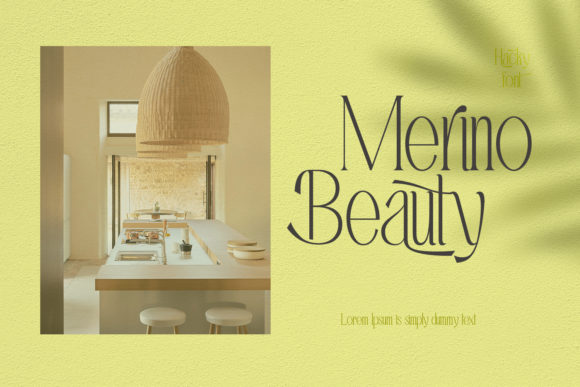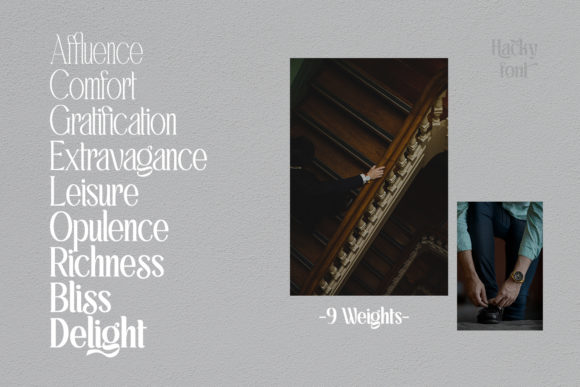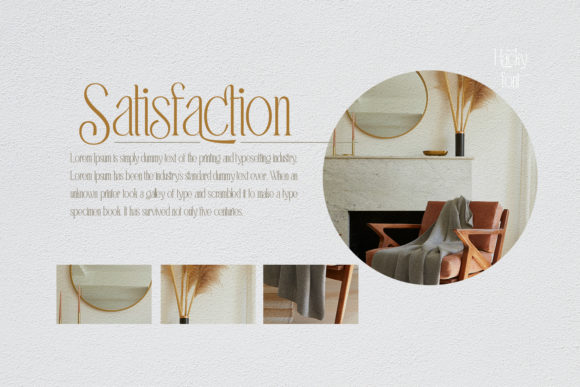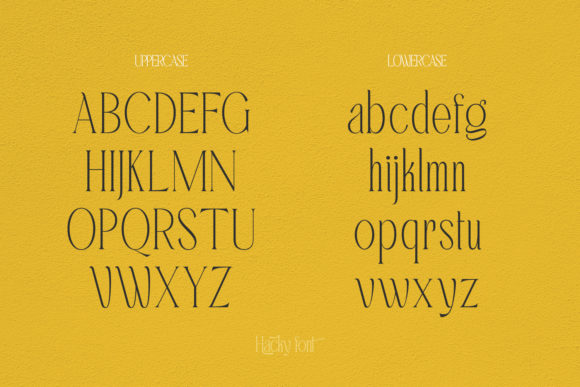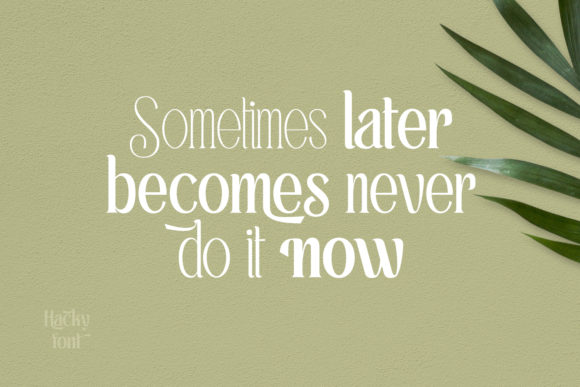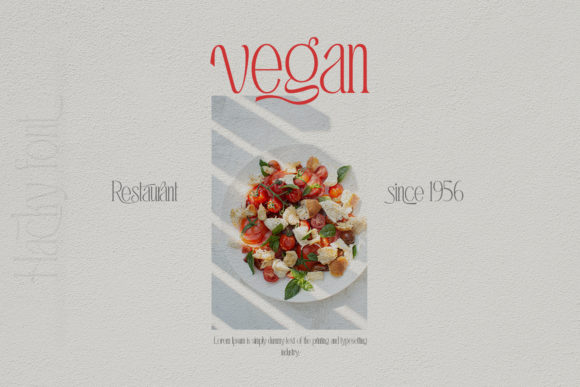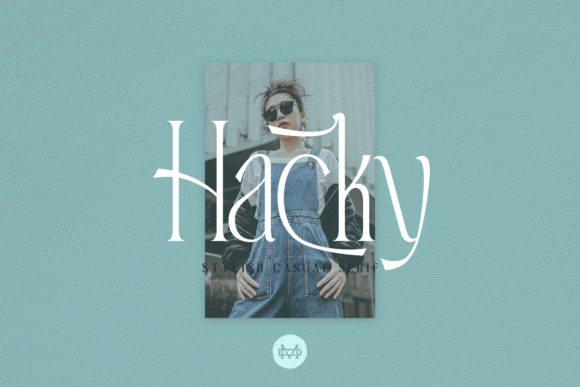
Introducing Hacky Font: The Ultimate Serif Font for Designers and Crafters
In the world of typography, a font can make or break a design. A well-chosen font can elevate your project, add personality, and convey the right message to your audience. If you’re a designer or crafter looking for a stylish and delicate serif font, look no further than Hacky Font. In this article, we’ll explore the features and benefits of Hacky Font, and why it’s the perfect addition to your design toolkit.
What is Hacky Font?
Hacky Font is a beautifully crafted serif font that exudes elegance and sophistication. Its clean, thin, and smooth vibe makes it perfect for a wide range of design applications. Whether you’re creating branding materials, product packaging, invitations, quotes, t-shirts, labels, posters, or logos, Hacky Font is the ideal choice.
Key Features of Hacky Font
- Delicate Serif: Hacky Font features a delicate serif design that adds a touch of refinement to any project.
- Clean and Thin: The font’s clean and thin lines create a smooth and elegant appearance.
- Smooth Vibe: Hacky Font has a smooth vibe that makes it perfect for designs that require a touch of sophistication.
- Versatile: Hacky Font is suitable for a wide range of design applications, from branding and packaging to invitations and posters.
Benefits of Using Hacky Font
So, why should you choose Hacky Font for your design projects? Here are just a few benefits:
- Elegance: Hacky Font adds a touch of elegance and sophistication to any design.
- Readability: The font’s clean and thin lines make it easy to read, even at small sizes.
- Flexibility: Hacky Font is suitable for a wide range of design applications, making it a versatile addition to your design toolkit.
- Uniqueness: Hacky Font’s delicate serif design sets it apart from other fonts, making it perfect for designers who want to create unique and eye-catching designs.
Design Applications for Hacky Font
Hacky Font is suitable for a wide range of design applications, including:
- Branding: Use Hacky Font to create elegant and sophisticated branding materials, such as logos, business cards, and letterheads.
- Product Packaging: Add a touch of elegance to your product packaging with Hacky Font.
- Invitations: Create beautiful and elegant invitations for weddings, parties, and other special occasions.
- Quotes: Use Hacky Font to create inspiring and motivational quotes that are perfect for social media, posters, and other designs.
- T-Shirts: Add a touch of sophistication to your t-shirt designs with Hacky Font.
- Labels: Use Hacky Font to create elegant and readable labels for products, files, and other applications.
- Posters: Create eye-catching posters with Hacky Font that are perfect for advertising, promotion, and other applications.
- Logos: Use Hacky Font to create elegant and sophisticated logos that are perfect for businesses, organizations, and individuals.
In conclusion, Hacky Font is a stylish and delicate serif font that is perfect for designers and crafters who want to add a touch of elegance and sophistication to their designs. With its clean, thin, and smooth vibe, Hacky Font is suitable for a wide range of design applications, from branding and packaging to invitations and posters. Whether you’re a professional designer or a DIY crafter, Hacky Font is a versatile and unique addition to your design toolkit.